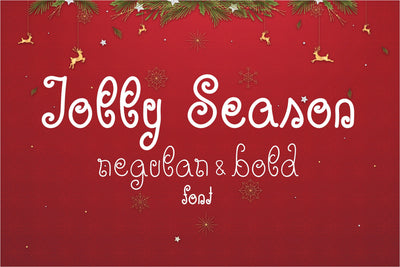
Jolly Season Font - Regular & Bold
The Jolly Season Font Duo is a fun, festive font that makes you think about the Christmas ornaments and decorations. The font comes in Regular and Bold and it looks great both as a single or combined form. It is perfect for your creative projects, personal or professional, cards, posters, posts and others and it will definitely add some sparkle to all of your projects.